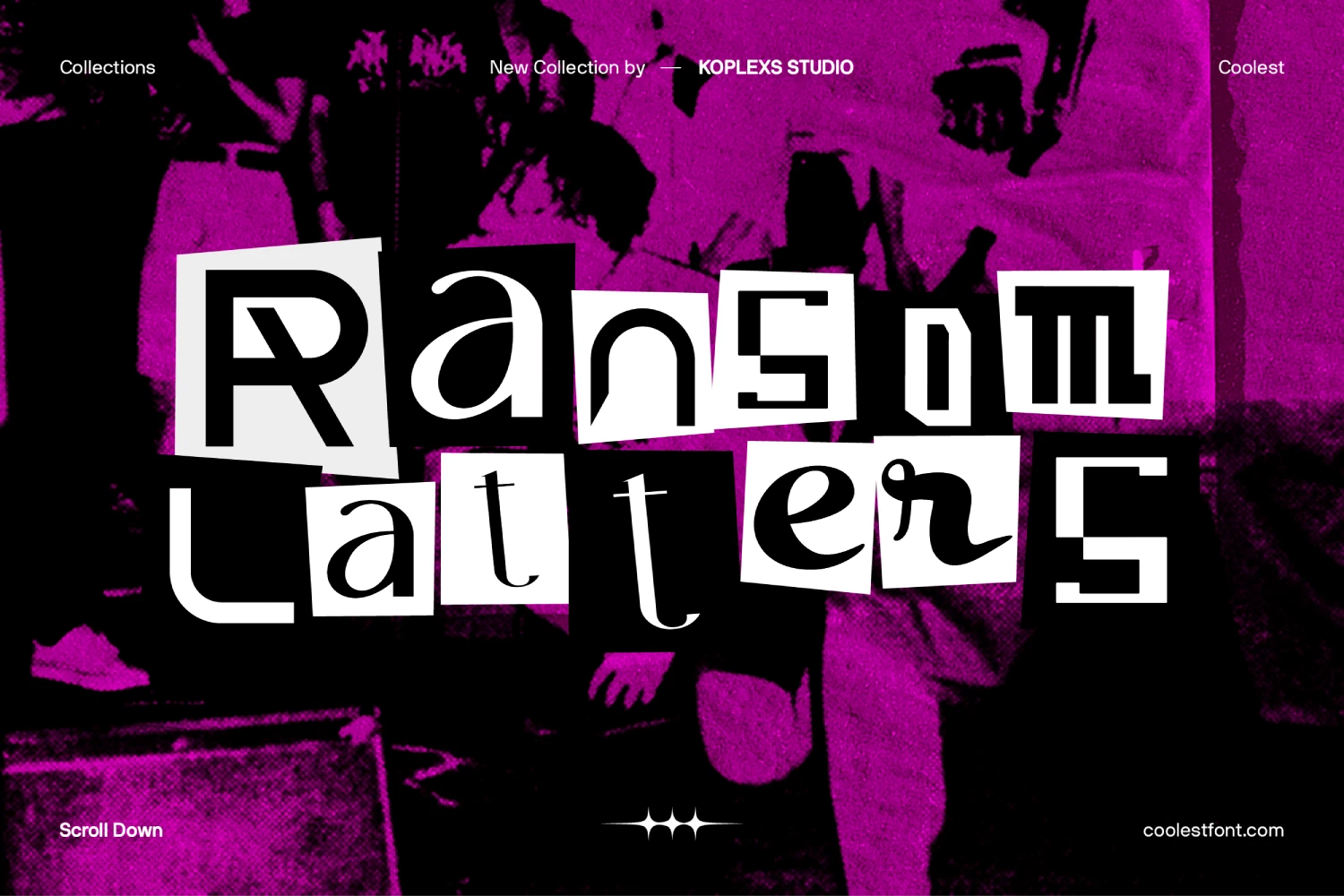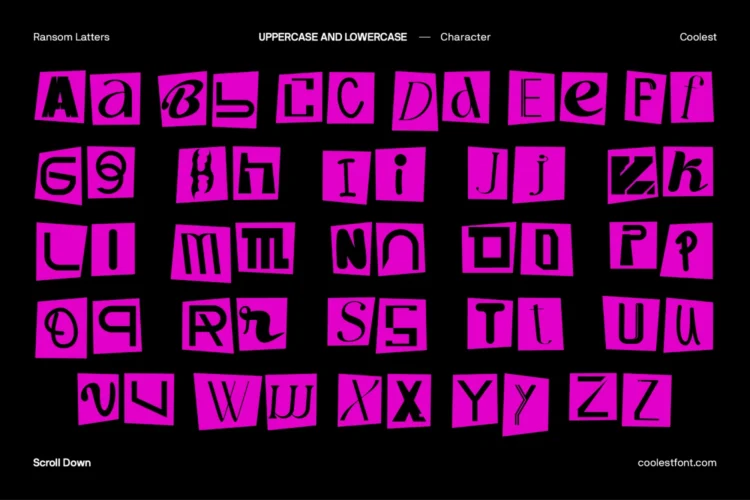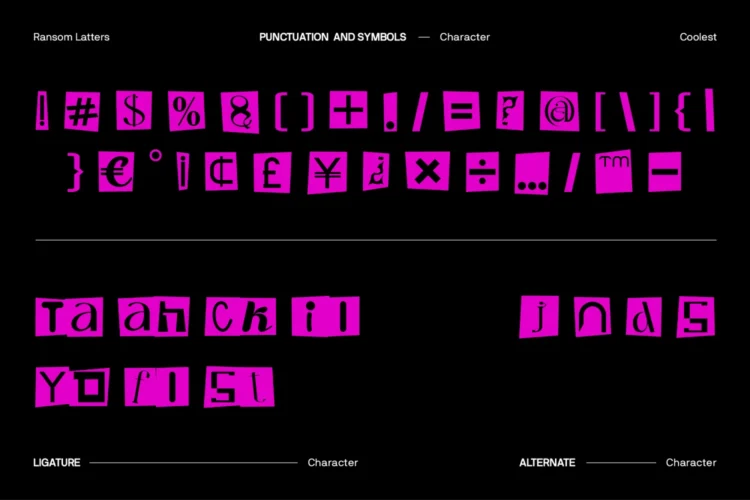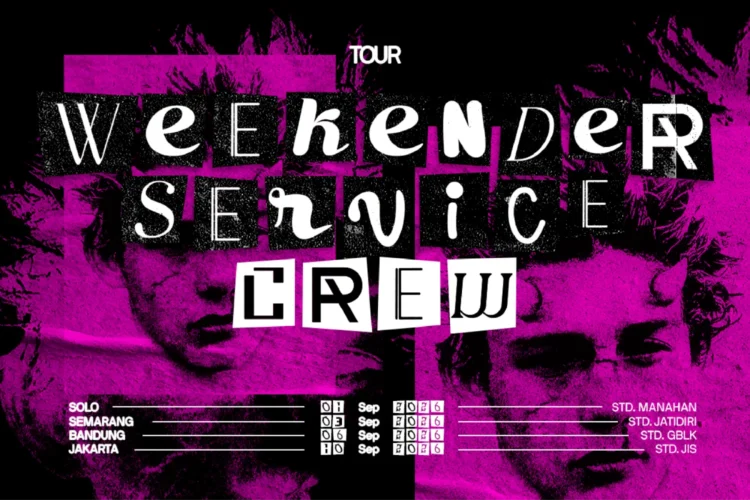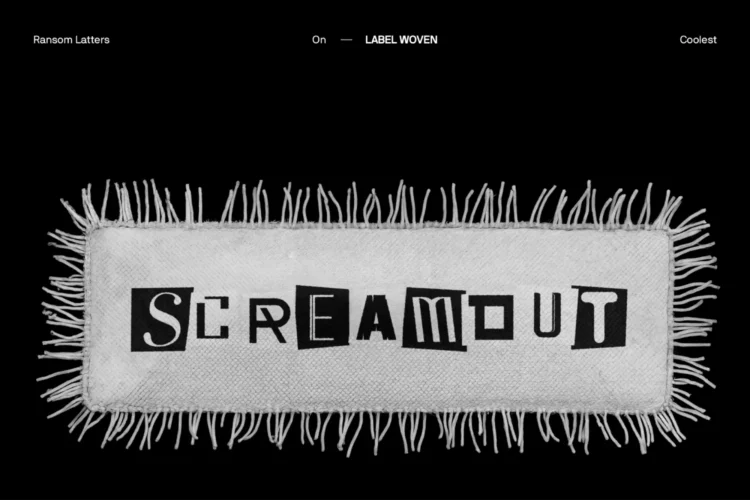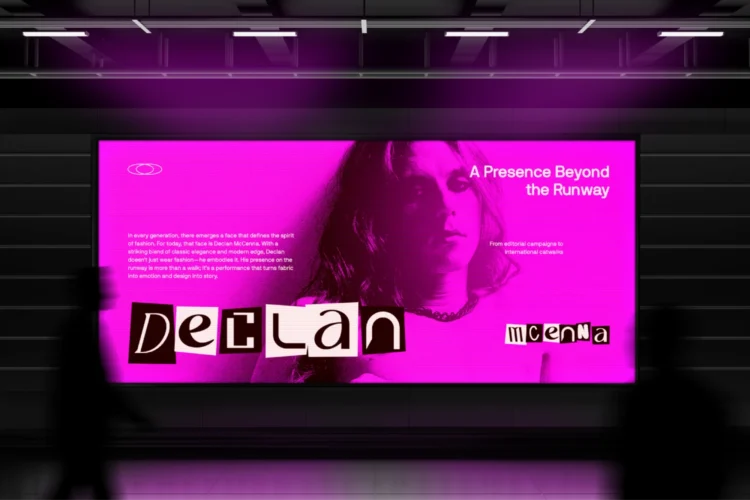
Ransom Latters Font
Ransom Latters Font | Playful, Fancy, and Aesthetic Display Font for Branding, Logos, Posters, and Creative Designs
Ransom Latters Font is a modern display font that blends rebellious creativity with a playful and fancy font style. Designed by Koplexs Studio, this typeface captures the cut-and-paste collage aesthetic of ransom notes while keeping a strong modern edge. Every letter looks unique and dynamic, making it perfect for designers who want to express freedom and originality in their visuals.
This aesthetic font works beautifully as a branding font, headline font, logo font, and poster font. Its irregular shapes and artistic texture make it stand out in every composition. With its balance of elegance and energy, Ransom Latters Font adds a stylish and modern touch to any creative project.
As a cover font, goods font, and luxury font, it fits perfectly into high-impact designs like music covers, fashion branding, and editorial layouts. The cool font look gives it attitude, while its modern font structure keeps it professional and visually striking.
• Standard & Multilingual glyphs
• Alternates
• Ligatures
Ransom Latters Font is versatile and works beautifully for :
• Brand identities and creative logos
• Fashion, streetwear, and editorial design
• Album art and merchandise packaging
• Posters, flyers, and magazine covers
• Product labels and social media visuals
• Headings and typographic compositions
Ransom Latters Font is more than just typography; it is a visual statement that brings character, fun, and sophistication to your work.
Ransom Latters Font is a modern display font with a playful and fancy style. Perfect for branding, posters, logos, and covers, this aesthetic and cool font adds elegance and creativity to any project.